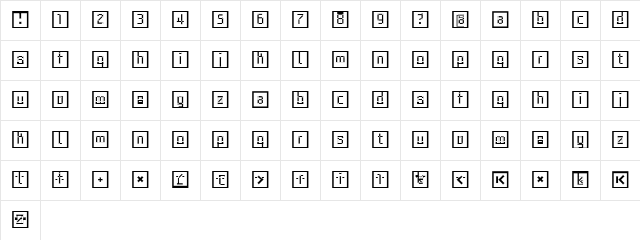
ArcheTypoBricks Regular
Design Context for ArcheTypoBricks Typeface
ArcheTypoBricks offers clean, dependable letterforms without strong stylistic allegiance, making it a practical choice for designers who need flexibility.